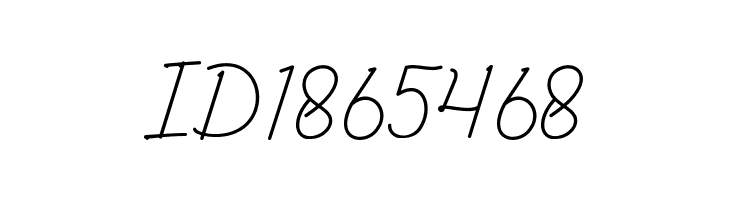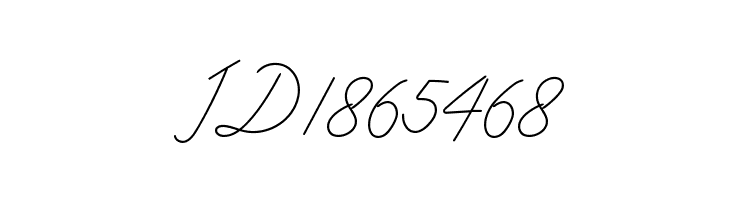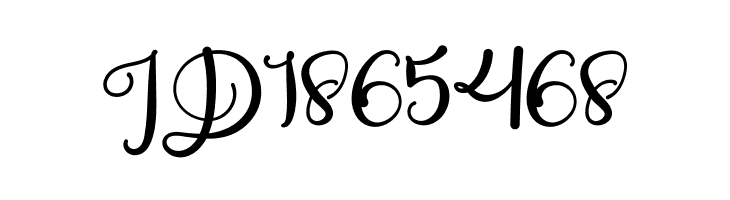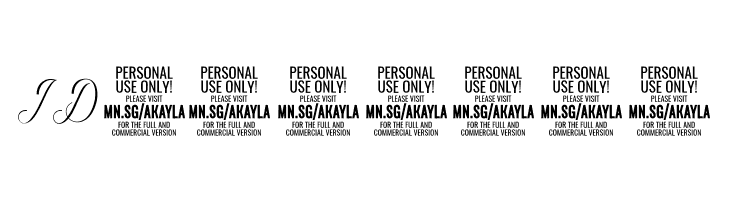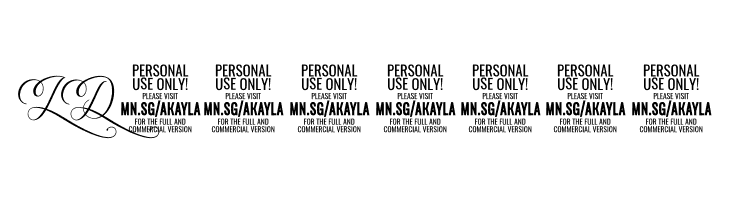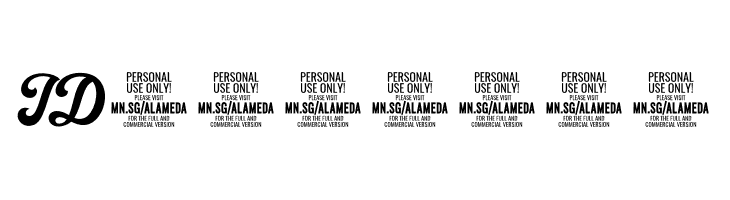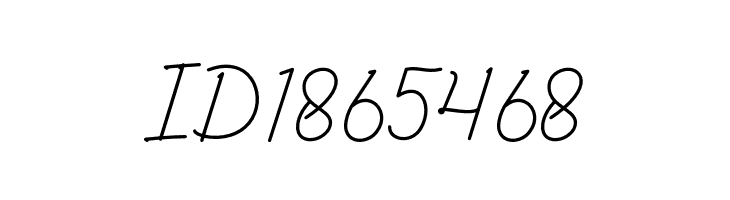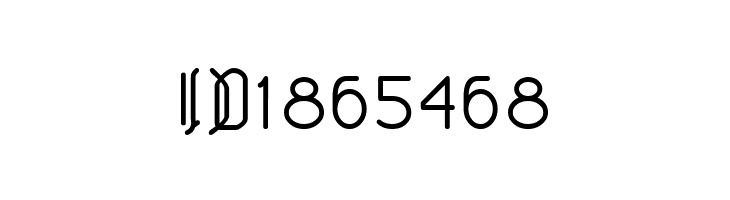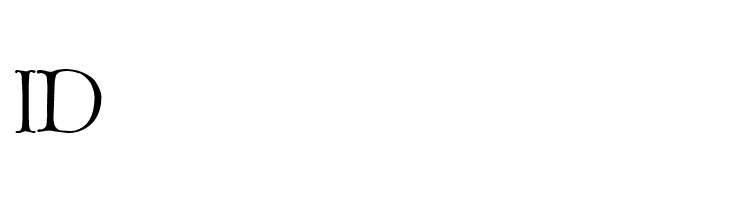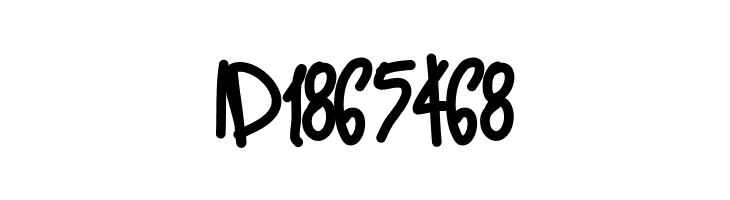
• Aka-AcidGR-ScriptCondenced
A playful, hand-drawn script font with a condensed and bold style.
• AkashiMF
A modern-vintage font with unique curves and angular details.
• AkaylaScriptDecoPERSONALUSE
An elegant, decorative script font with intricate swashes and flowing letterforms.
• AkaylaScriptPERSONALUSE
An elegant script font with flowing cursive letters and high contrast strokes.
• aladina script
A graceful and fluid script font with interconnected letters and elegant curves.
• Alameda Script PERSONAL USE Regular
A bold, flowing script font with elegant curves and high contrast.
• Alarate Script Personal Use
An elegant script font with flowing, intricate loops and artistic flair.
• Albelia-Script
A graceful script font with flowing, connected strokes and a handwritten style.
• Albelia-Script
A flowing, cursive script font with elegant, interconnected characters.
• Albemarle Demo